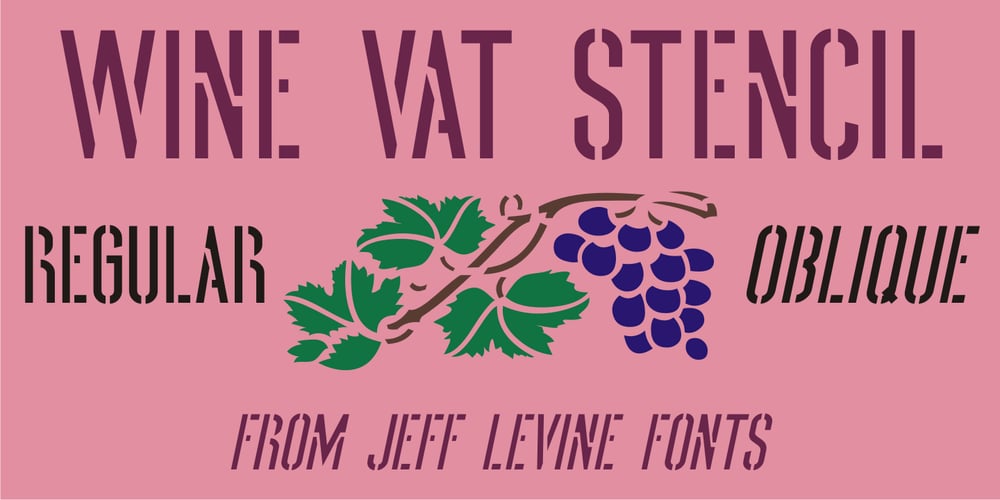
Wine Vat Stencil JNL Font Family was designed by Jeff Levine and published by Jeff Levine. Wine Vat Stencil JNL contains 2 styles and family package options. An image of a vintage metal stencil for the French wine region Côteaux du Tricastin [now Grignan-Les Adhemar] served as the inspiration for Wine Vat Stencil JNL. This condensed sans serif design is available in both regular and oblique versions.